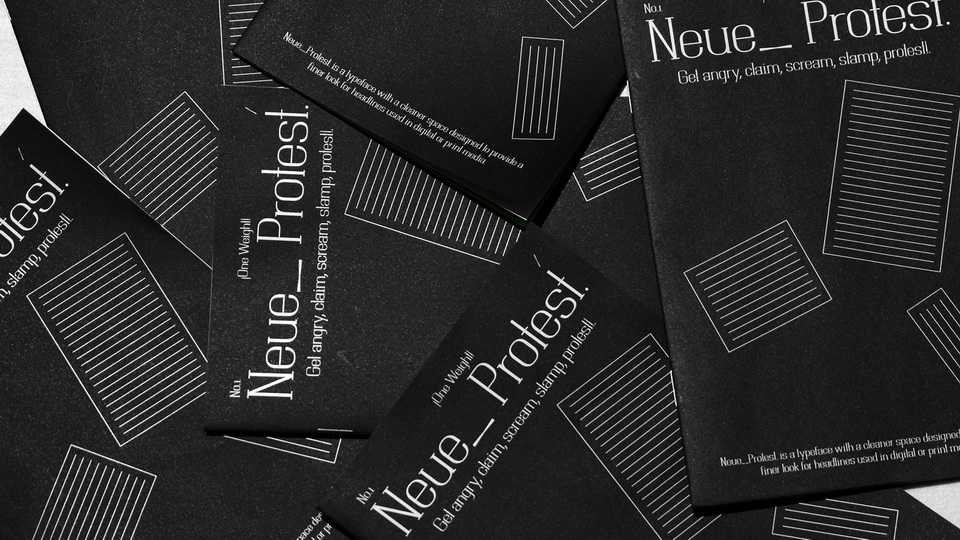
Download Neue Protest font, a modular serif typeface designed to give headlines a sleeker look in print & digital media. Neue Protest’s inspiration comes from references in protest posters.